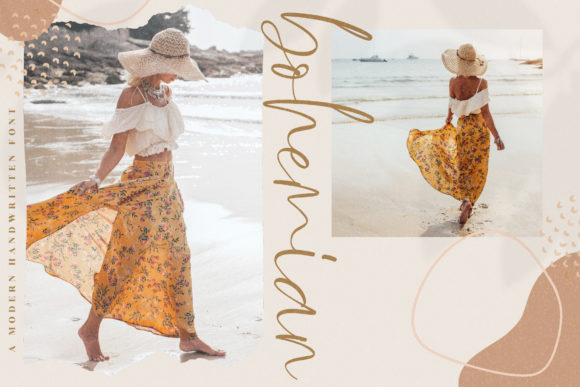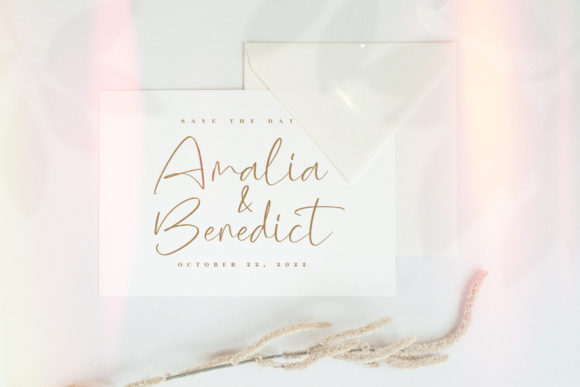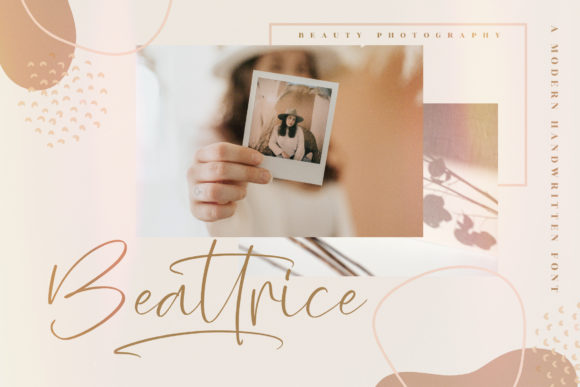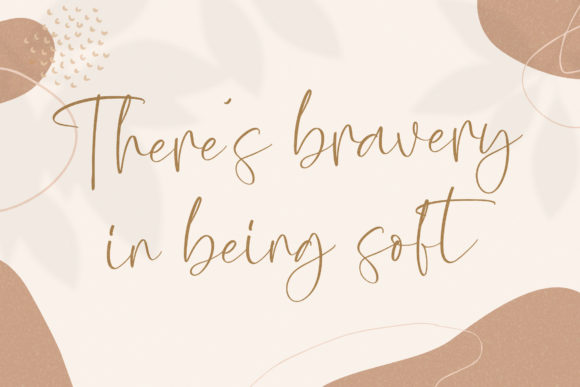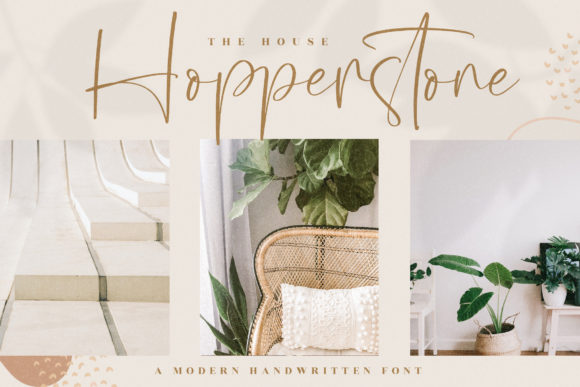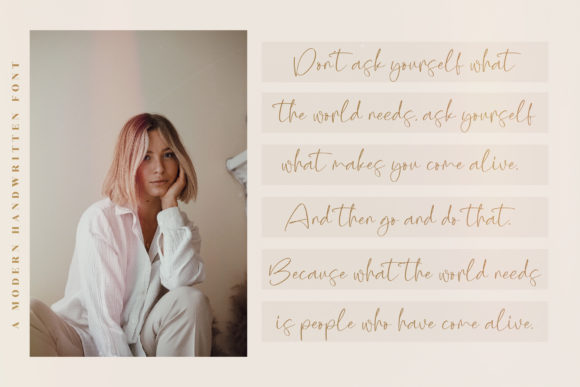
Introduction to Montthana Font
Have you ever been working on a creative project, pouring your heart and soul into it, only to feel like it’s missing that special something? That’s where the perfect font can come in – and we’ve got just the one for you. Introducing the Montthana Font, a skinny script font that’s guaranteed to add a touch of magic to your design.
With its charming, playful characters that seem to dance along the baseline, the Montthana Font is the perfect addition to any creative project. Whether you’re working on a branding project, a social media campaign, or even a simple blog post, this font is sure to make your ideas stand out. And the best part? It’s available for free download, making it a valuable resource for designers of all levels.
From transparent backgrounds to high-quality designs, the Montthana Font is a game-changer for any creative project. Its unique, hand-drawn feel adds a personal touch to your work, making it truly one-of-a-kind. So why settle for a generic font when you can have a font that truly makes your design pop?
Key Features of Montthana Font
- Unique characteristics include elegant lines, refined shapes, and a modern aesthetic, making it perfect for a wide range of creative projects.
Honest Review: Montthana Font
I recently had the chance to work with the Montthana Font, and I must say it’s been a great addition to my design resource library. The font’s high quality and unique style made it perfect for a creative project I was working on.
What works well with the Montthana Font is its versatility. It’s suitable for both digital and print media, and it looks great with a transparent background. The font is also very easy to customize, which is a big plus for me.
- ✨ Unique style that adds a touch of elegance to any design
- ✨ High quality, making it perfect for print media
- ✨ Suitable for digital media, including websites and social media
However, I did encounter a few limitations with the Montthana Font. The font is not as extensive as some other font families, and it may not be suitable for very long blocks of text.
Overall, I’m very impressed with the Montthana Font. It’s a great design resource that’s perfect for any creative project. The only thing I would recommend is to use it in moderation, as it can be a bit overwhelming if used too extensively.
Tips for Getting the Most Out of Montthana Font
To get the most out of Montthana Font, use it in a creative project where its high quality and unique design can shine. Consider using a transparent background to really make the font stand out. You can also experiment with different sizes and styles to find the perfect look for your project.
The Montthana Font is a versatile design resource that can be used in a variety of creative projects, including logos, branding materials, and digital graphics. Its high quality and unique design make it an ideal choice for any project where you want to make a statement. You can download the Montthana Font for free and use it in your next creative project.